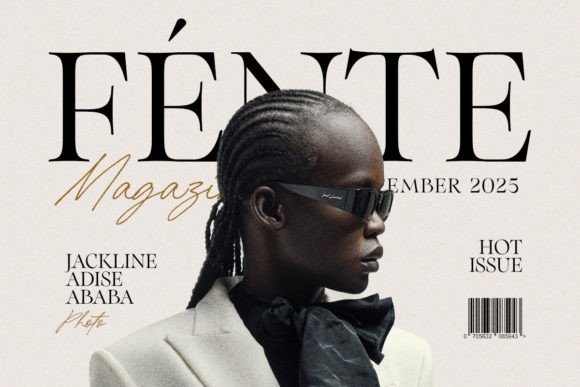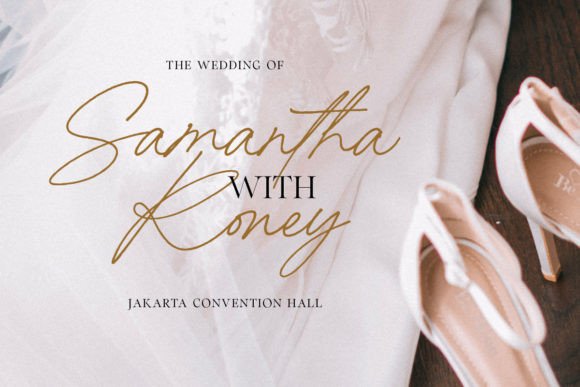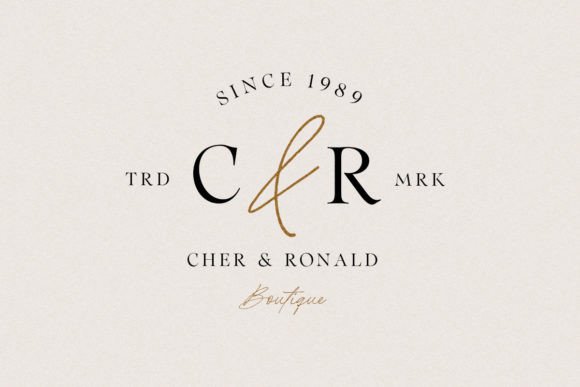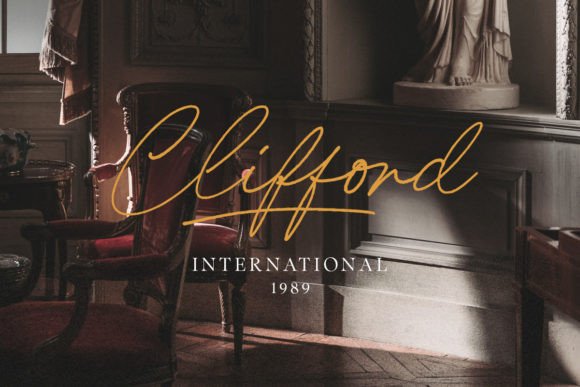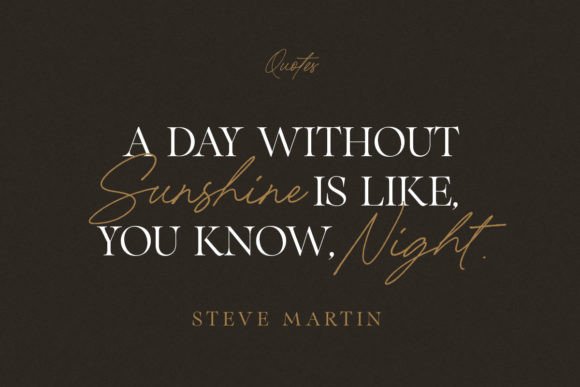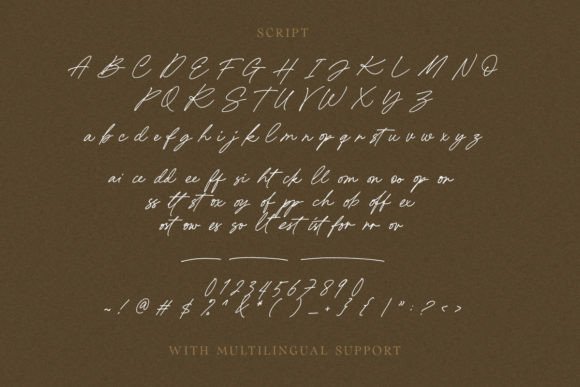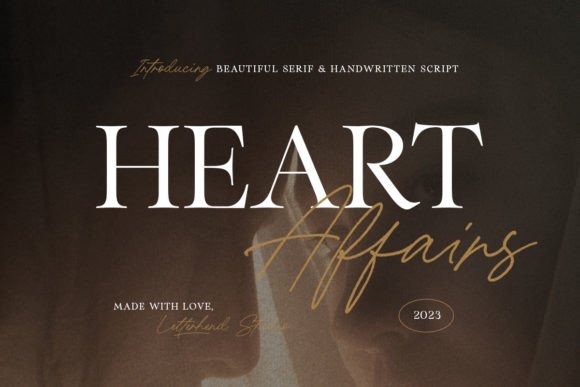
Introducing Heart Affairs Font: The Ultimate Serif- Script Duo
Ladies and gentlemen, please welcome our new font duo – Heart Affairs, where the elegance of a serif font intertwines flawlessly with the beauty of a handwritten script. This font duo is carefully crafted to bring together the classic charm of serifs with the contemporary edge of modern scripts. Whether you’re designing wedding invitations, branding materials, or editorial layouts, Heart Affairs effortlessly elevates your projects with its timeless appeal and stylish versatility.
The Perfect Union of Serif and Script
Heart Affairs is not just a font duo, but a design statement that combines the sophistication of serif fonts with the warmth and personality of handwritten scripts. The serif font in the duo boasts classic lines, refined curves, and a sense of luxury, making it perfect for headings, titles, and formal text. On the other hand, the script font is a beautiful, modern interpretation of handwritten lettering, with flowing lines, subtle imperfections, and a dash of elegance.
Design Features and Characteristics
So, what makes Heart Affairs a standout font duo? Here are some of its key features and characteristics:
- Elegant Serif Font: The serif font in Heart Affairs features classic lines, refined curves, and a sophisticated feel. It’s perfect for creating headings, titles, and formal text that exudes luxury and refinement.
- Beautiful Handwritten Script: The script font is a stunning, modern interpretation of handwritten lettering. It boasts flowing lines, subtle imperfections, and a dash of elegance, making it ideal for adding a personal touch to your designs.
- Timeless Appeal: Heart Affairs has a timeless quality that makes it suitable for a wide range of design projects, from traditional wedding invitations to modern branding materials.
- Stylish Versatility: The font duo is incredibly versatile, allowing you to create a wide range of designs, from elegant and sophisticated to playful and whimsical.
Use Cases for Heart Affairs Font
Heart Affairs is an incredibly versatile font duo that can be used in a variety of design projects, including:
- Wedding Invitations: Create stunning wedding invitations, save-the-date cards, and wedding stationery with Heart Affairs.
- Branding Materials: Use Heart Affairs to create elegant and sophisticated branding materials, such as logos, business cards, and letterheads.
- Editorial Layouts: Elevate your editorial layouts, such as magazines, newspapers, and blogs, with the classic charm of Heart Affairs.
- Packaging Design: Add a touch of elegance to your packaging design with Heart Affairs, perfect for luxury brands and high-end products.
Tips for Using Heart Affairs Font
Here are some tips for getting the most out of Heart Affairs:
- Mix and Match: Experiment with different combinations of the serif and script fonts to create visually appealing contrasts.
- Play with Sizes: Use different font sizes to create hierarchy and emphasis in your designs.
- Add Decorative Elements: Add decorative elements, such as flourishes and swashes, to give your designs an extra touch of elegance.
Heart Affairs is a stunning font duo that brings together the classic charm of serif fonts with the contemporary edge of modern scripts. With its timeless appeal and stylish versatility, it’s perfect for designers and crafters looking to elevate their projects. Whether you’re designing wedding invitations, branding materials, or editorial layouts, Heart Affairs is the perfect choice for creating elegant and sophisticated designs.